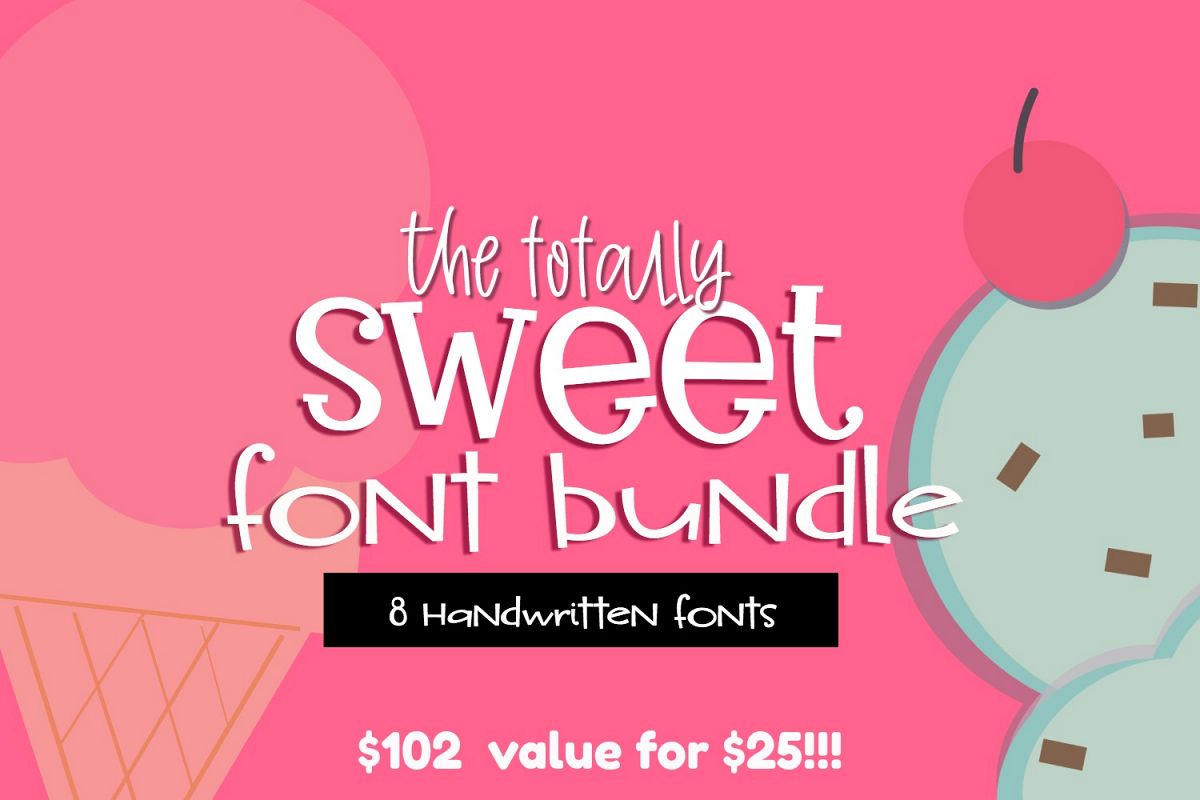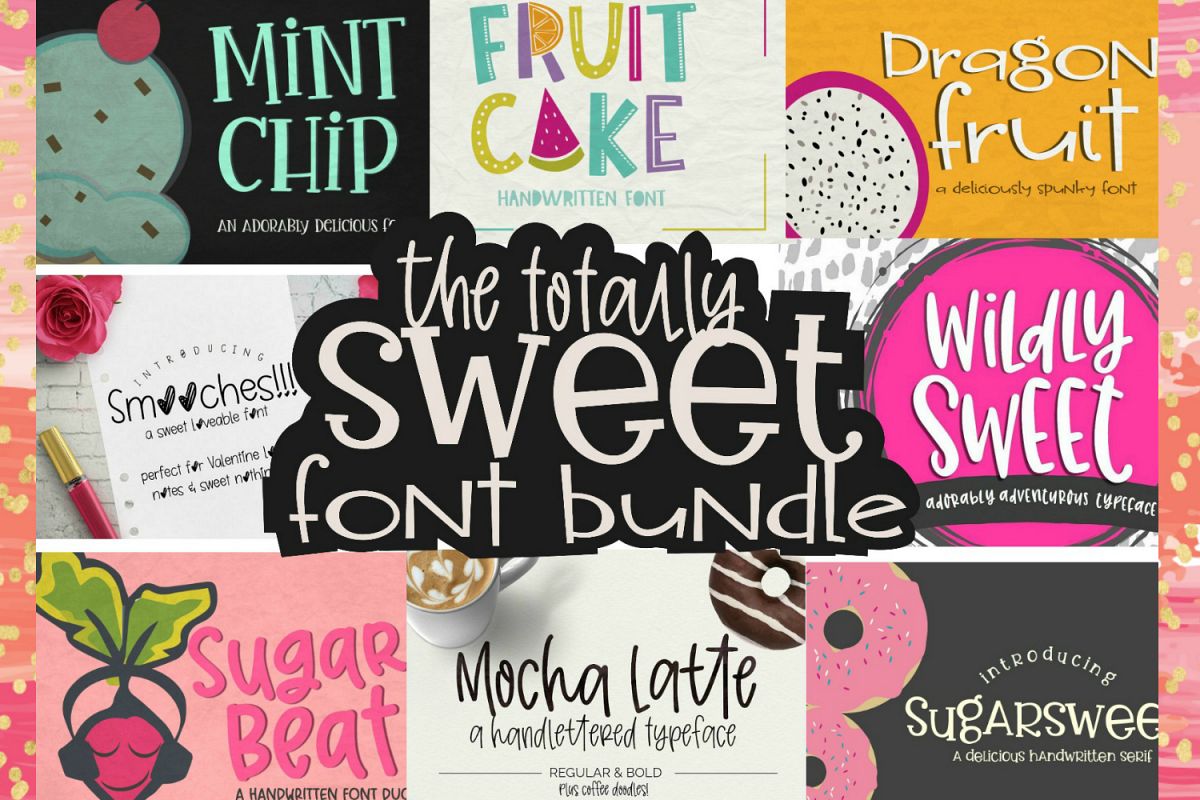
Totally Sweet Font Bundle
This Totally Sweet Font Bundle includes 8 handwritten fonts that are perfect for your sweetest, youthfully feminine designs! I've taken the time with each of these fonts to make sure they are as smooth as possible for optimal cutting machine performance, making these fonts a must-have for Cricut and Silhouette crafters!
Included Fonts: